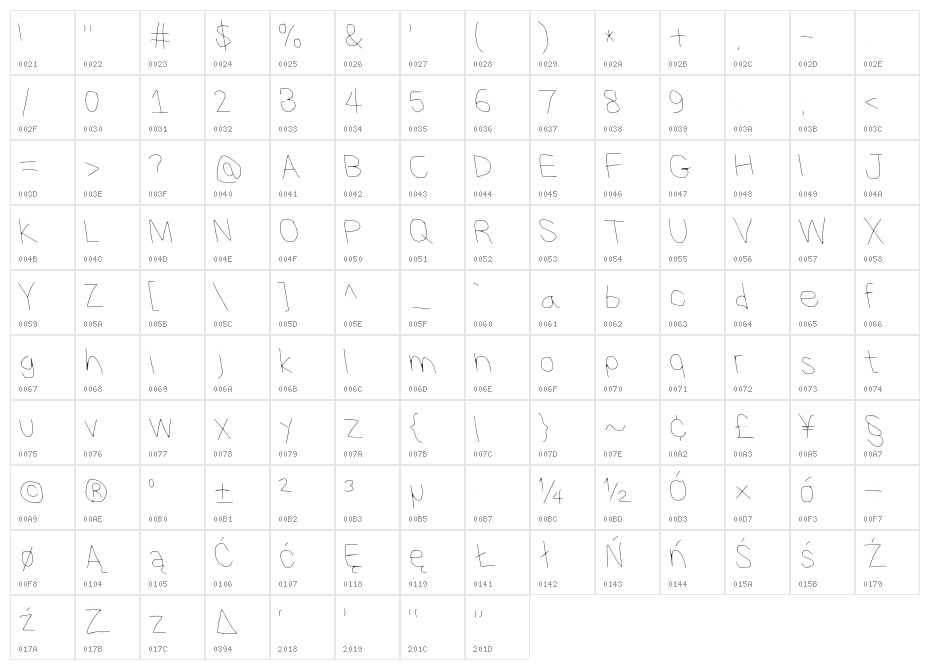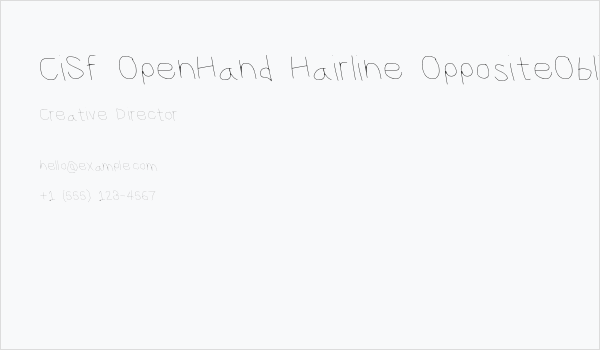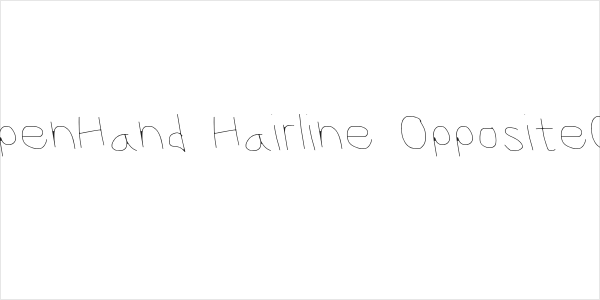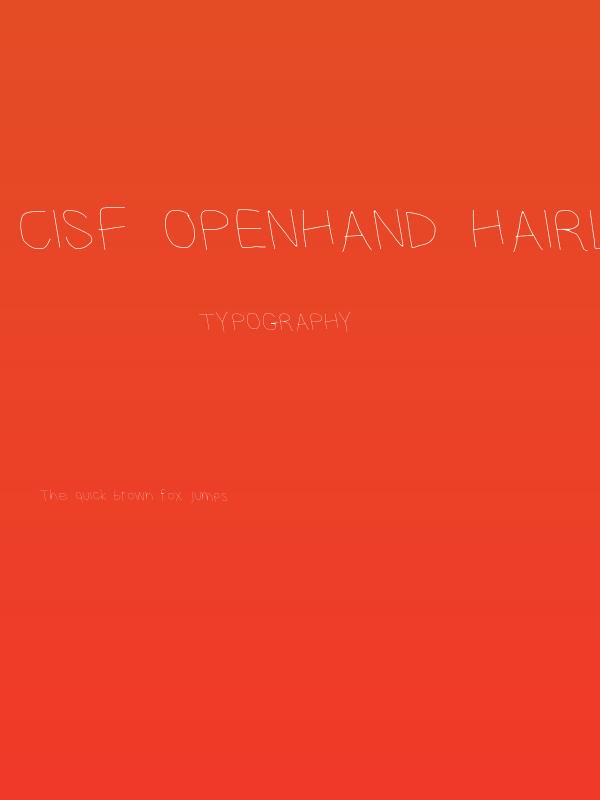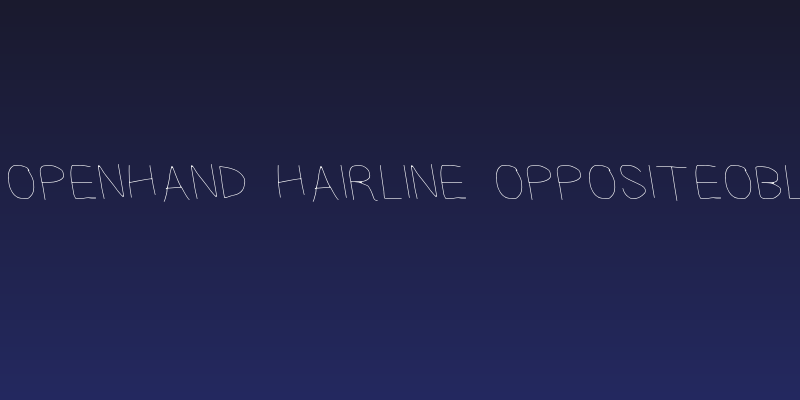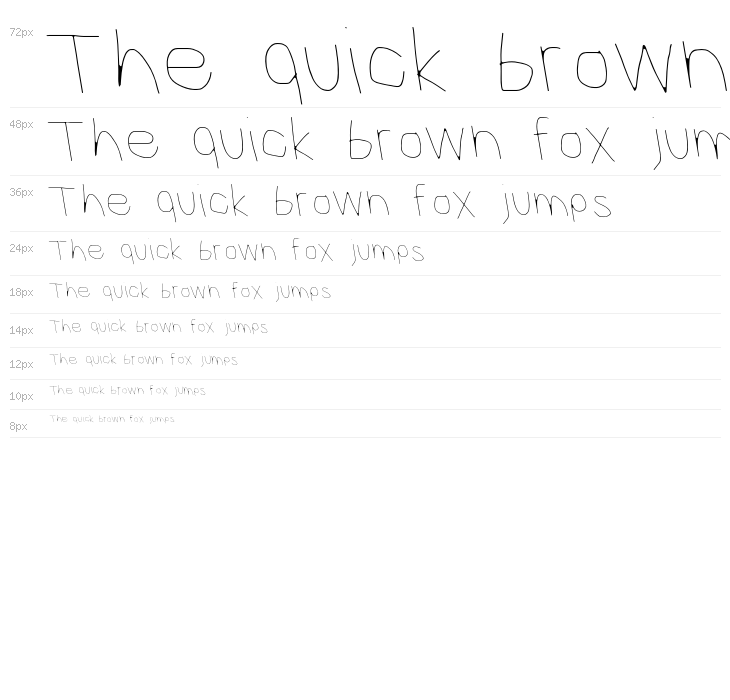
CiSf OpenHand Hairline OppositeOblique Font
CiSf OpenHand Hairline OppositeOblique Description
This font features a unique, hand-drawn style with a thin, hairline stroke that gives it a delicate and airy appearance. The characters are slightly irregular, adding a personal and informal touch. The uppercase letters are tall and narrow, while the lowercase letters maintain a consistent height, contributing to a cohesive look. Numbers and special characters follow the same thin, whimsical style, making the font suitable for creative and artistic projects. The overall design is minimalist, with a modern twist that can add character to any design.